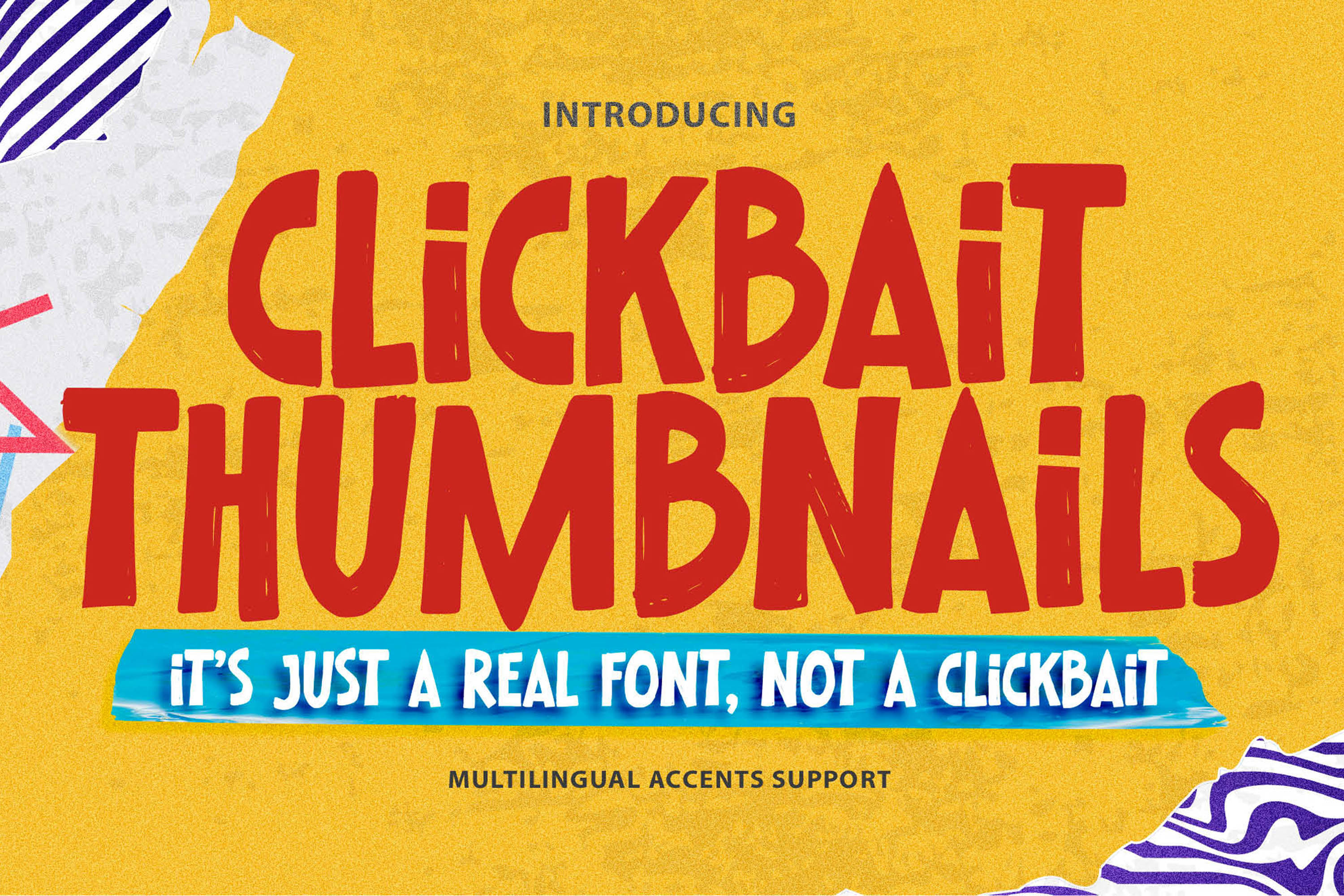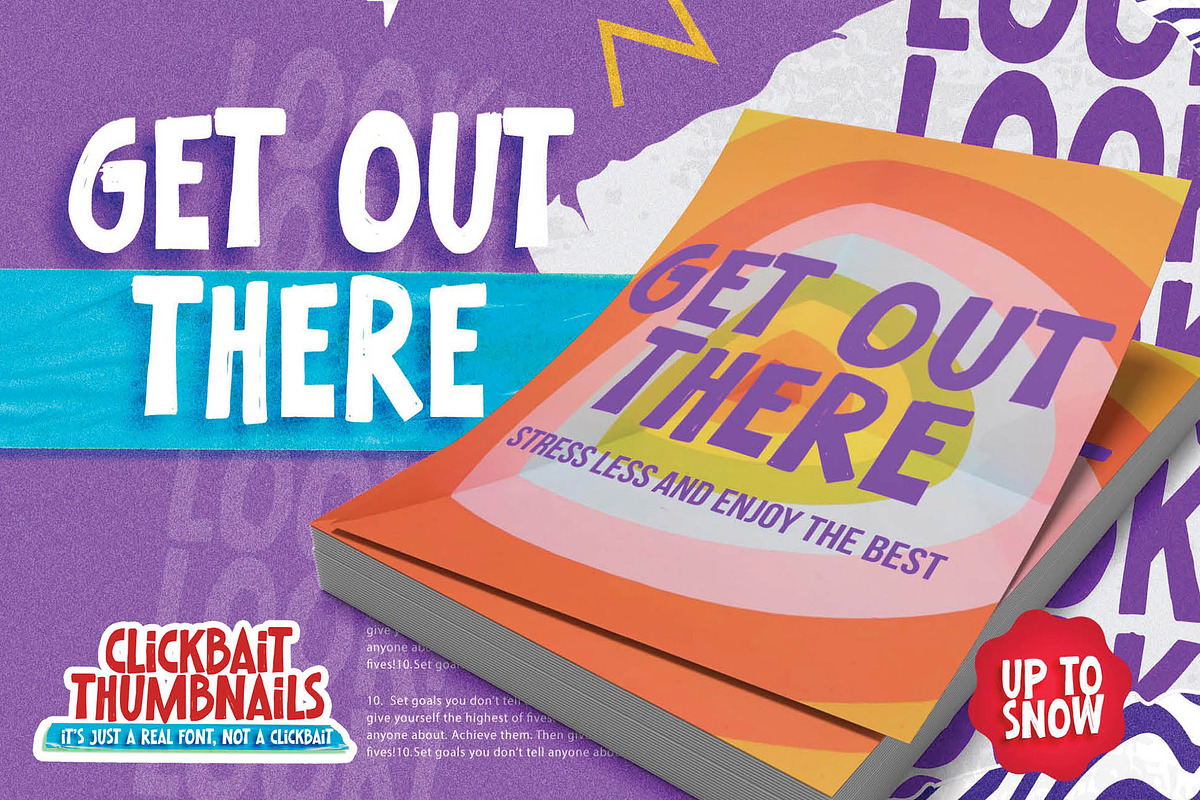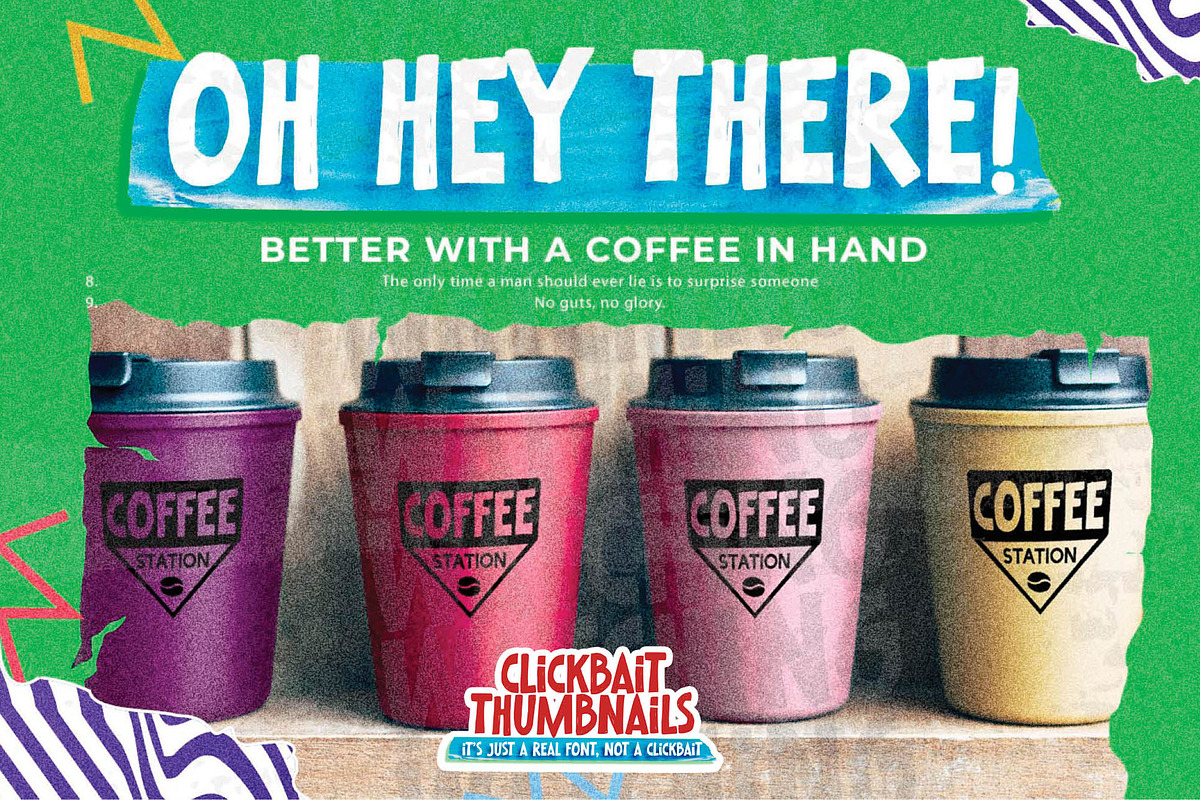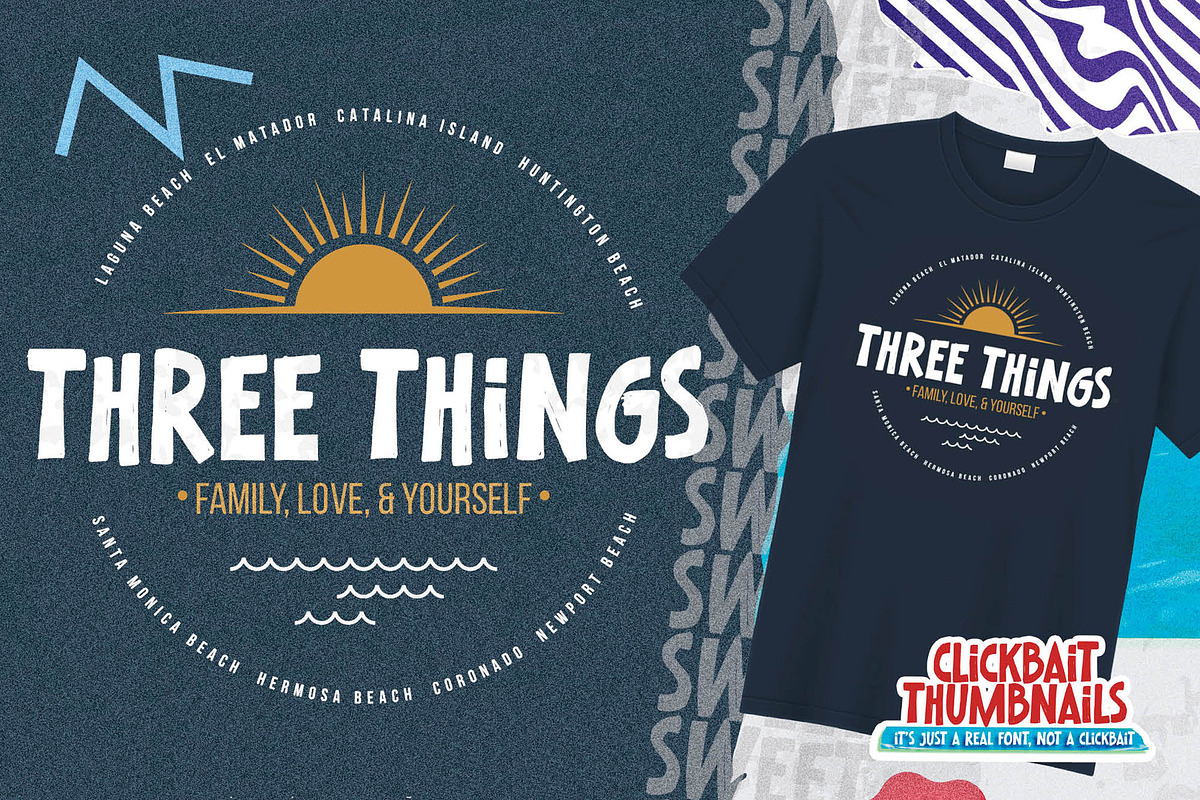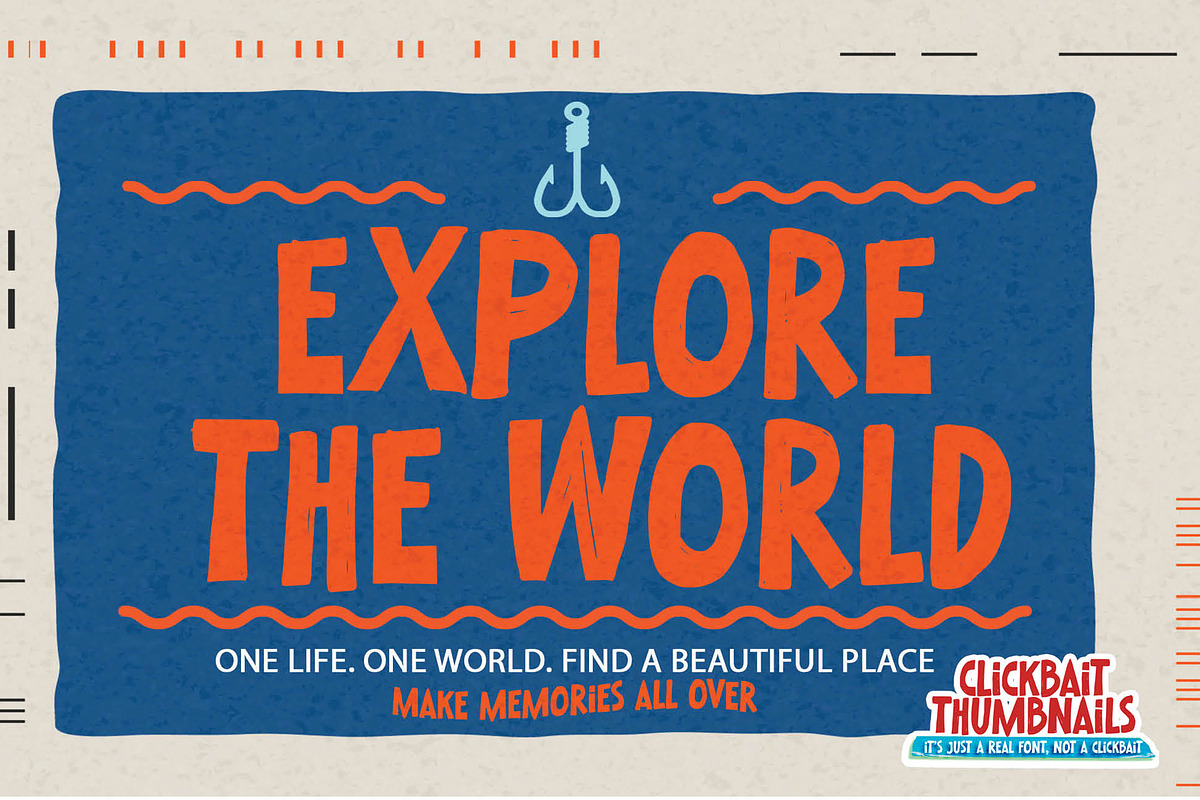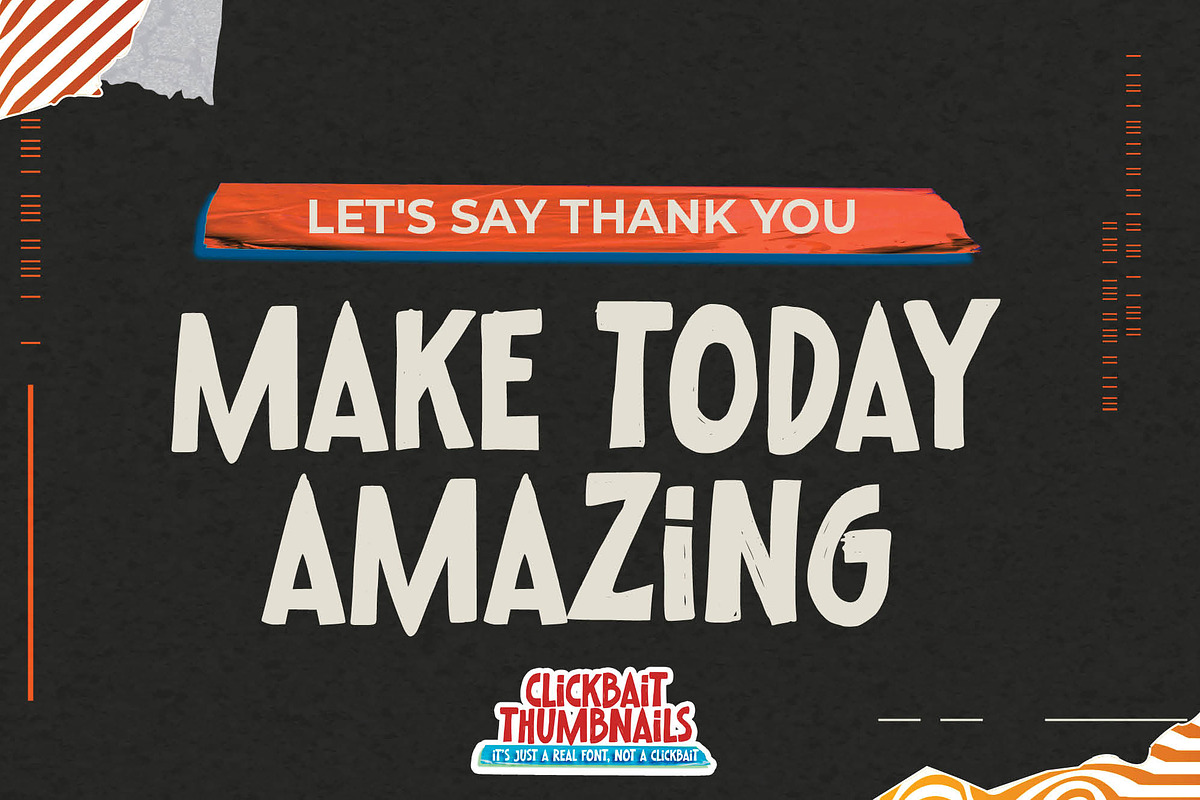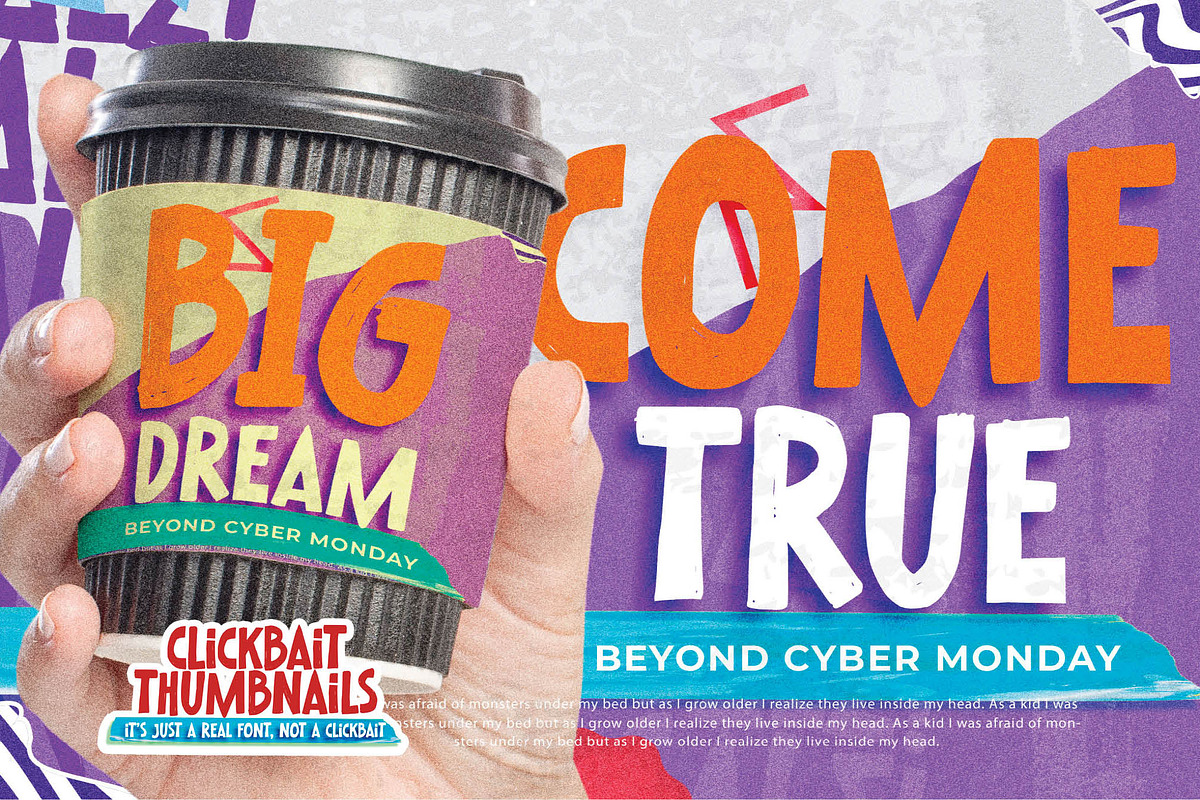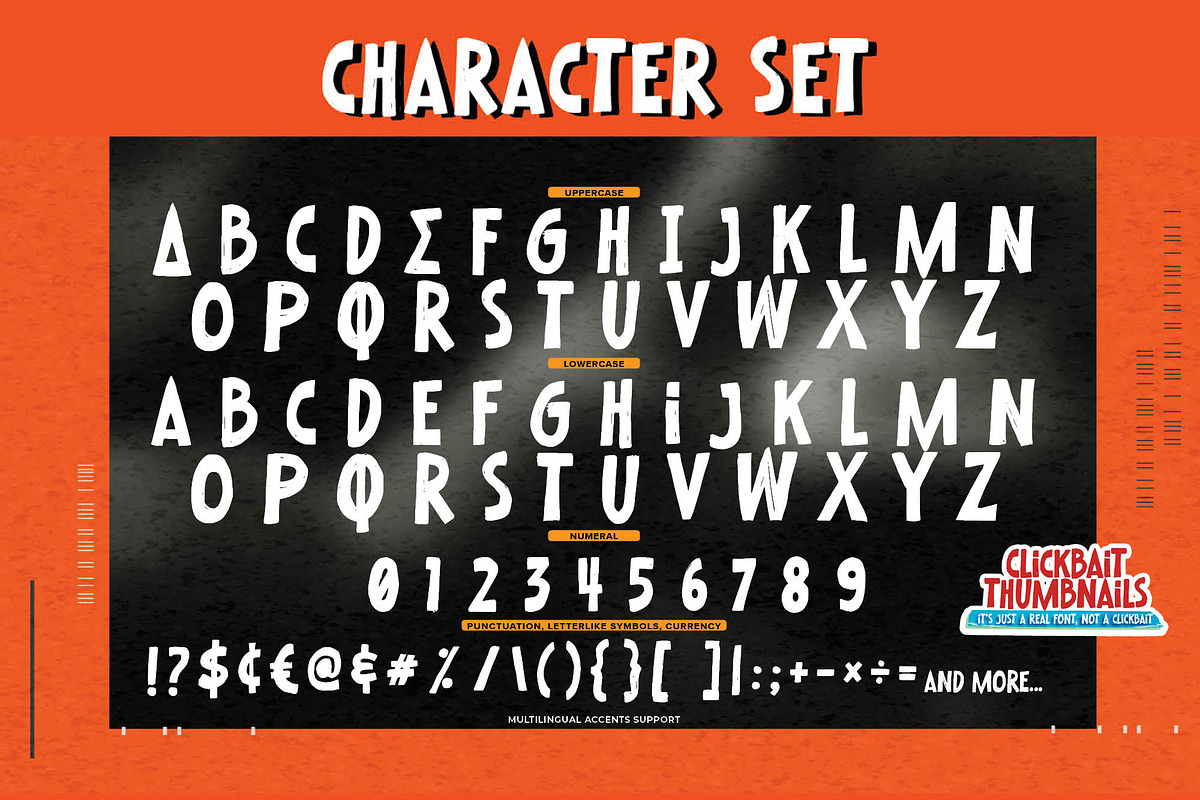
Clickbait Thumbnails – Cartoon Font
Here comes a New font,Introducing Clickbait Thumbnails is Unique Font ,This a Sans Serif Style and Cute Cartoon Font,Bold Display , Inspired from cartoon logos of brands that have very strong characteristics, this font is great for your creative projects such as watermark on photography, and perfect for logos & branding, invitation,advertisements,product designs, stationery, wedding designs,label ,product packaging
Clickbait Thumbnails a natural Hand Drawn Sans serif feel. This handmade font will make your design has a beautiful natural touch for each details. It is perfect for any design project as Invitation,logo, book cover, craft or any design purposes,photos, photography overlays, signs, window art, scrapbooking, tags and so much more!